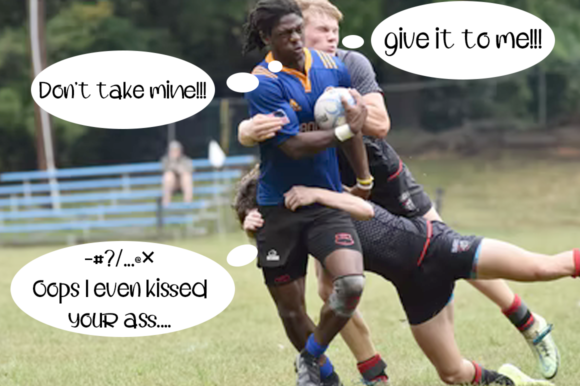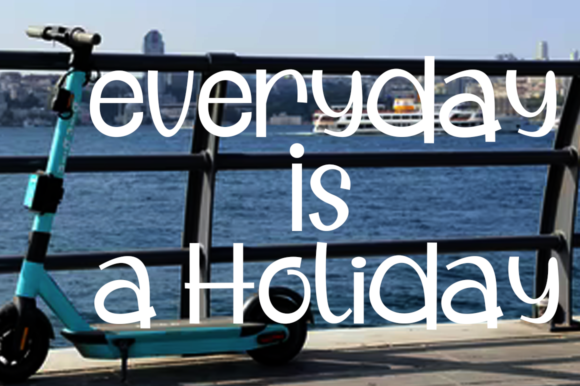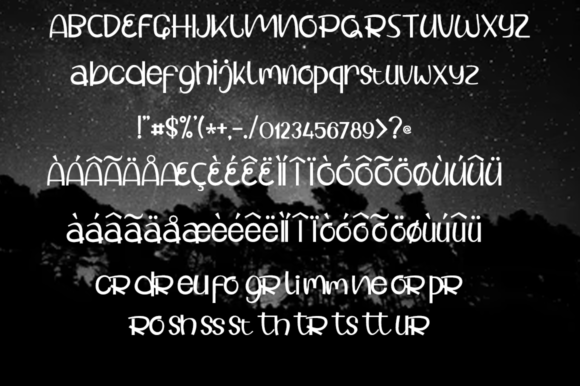
The Ultimate Guide to Caroline Font: Adding a Touch of Whimsy to Your Designs
I’ll never forget the time I was working on a project for a client who wanted a fun and playful vibe. I had all the design elements in place, but something was missing. That’s when I realized I needed a font that would add a casual and modern touch to the design. After scouring the internet, I stumbled upon Caroline Font, and it was love at first sight! In this article, I’ll share my experience with Caroline Font, its features, and how to make the most of it in your designs.
An Honest Review of Caroline Font
So, what makes Caroline Font so special? Let’s dive into the good stuff! 😊
- ✨ Fun and playful vibe: Caroline Font is perfect for designs that need a touch of whimsy and personality.
- ✅ Modern and clean lines: The font’s sleek design makes it suitable for a wide range of projects, from digital to print.
- 🌈 Versatile: Caroline Font can be used for headings, titles, and even body text, making it a great addition to any design project.
Now, let’s talk about some of the quirks. 🤔
- ⚠️ Limited use in formal designs: Caroline Font is best suited for casual and playful designs. It might not be the best choice for formal or professional projects.
- ⚠️ Glyph limitations: While Caroline Font has a range of glyphs and stylistic alternates, it might not have everything you need for a specific project.
The Designer Inspiration Behind Caroline Font
Caroline Font was designed with the intention of creating a fun and playful display font that would add a touch of whimsy to designs. The designer wanted to create a font that would be perfect for creative projects, such as posters, flyers, and social media graphics.
| Font Name | Caroline Font |
| Author | Gatra Std |
Q: What type of designs is Caroline Font best suited for?
A: Caroline Font is best suited for casual and playful designs, such as posters, flyers, and social media graphics.